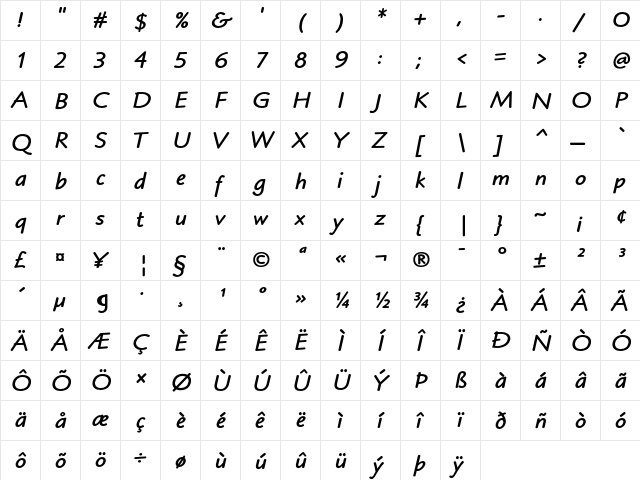
Blueprint MT Bold Italic
Design Context for Blueprint MT Typeface
Blueprint MT takes a measured approach to typography — its balanced proportions and neutral character make it a reliable workhorse for both digital and print work. The slanted form adds forward momentum and visual energy. Its bold stroke weight gives it real presence on the page.
Pro Tip: Use Blueprint MT for emphasis, pull quotes, and subheadings where its slanted energy can add rhythm to the layout.